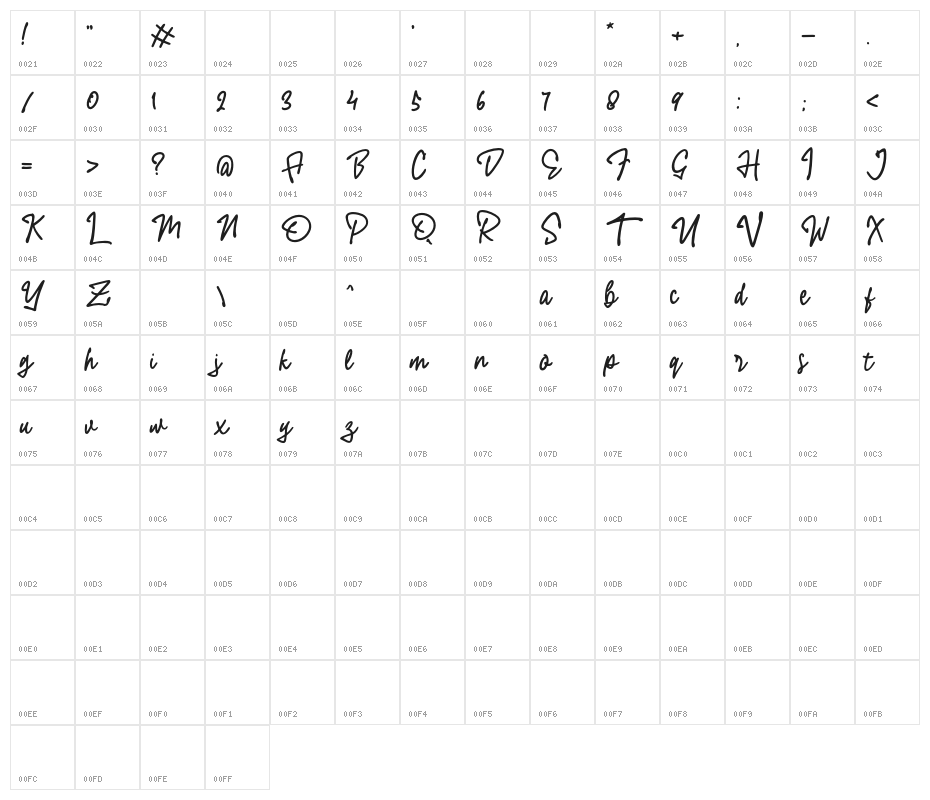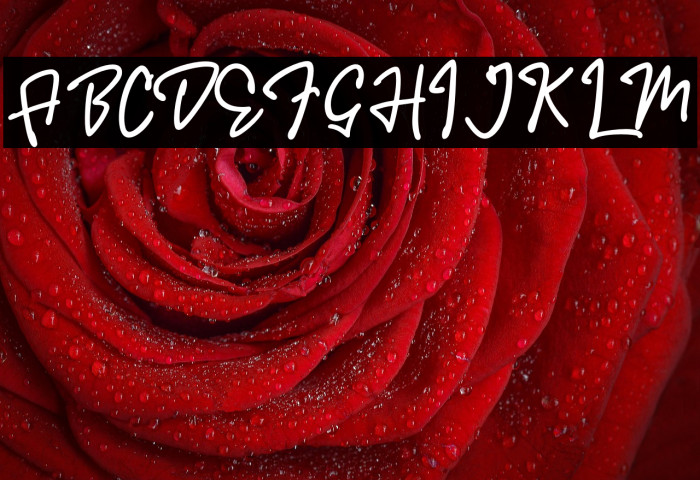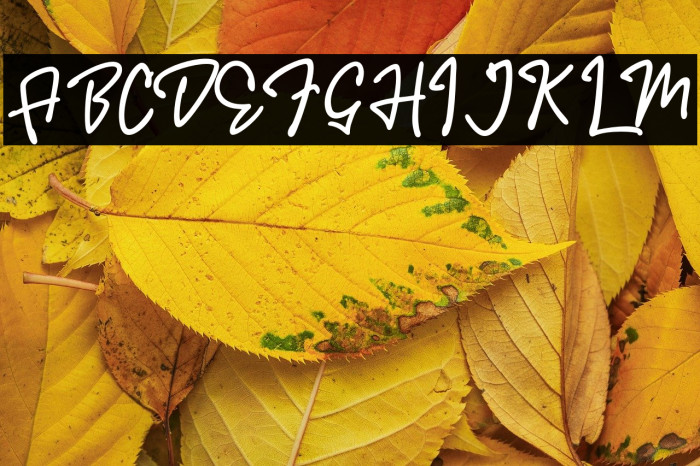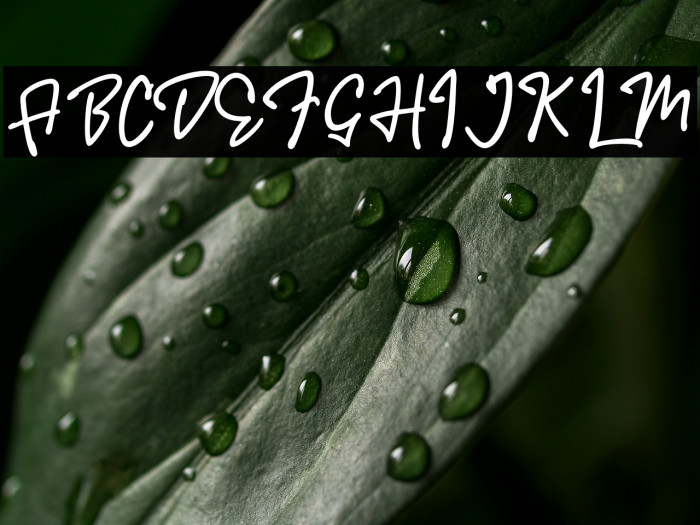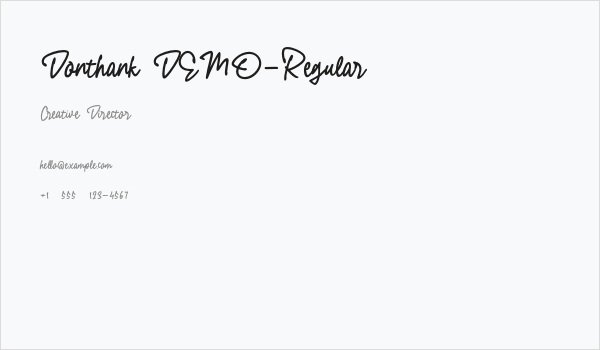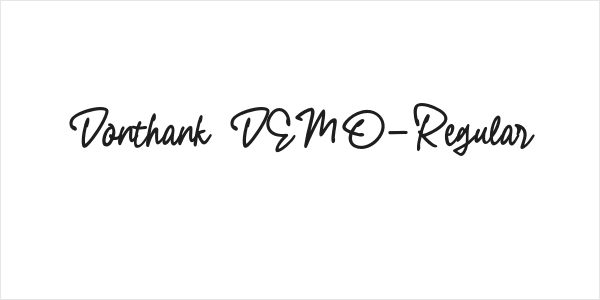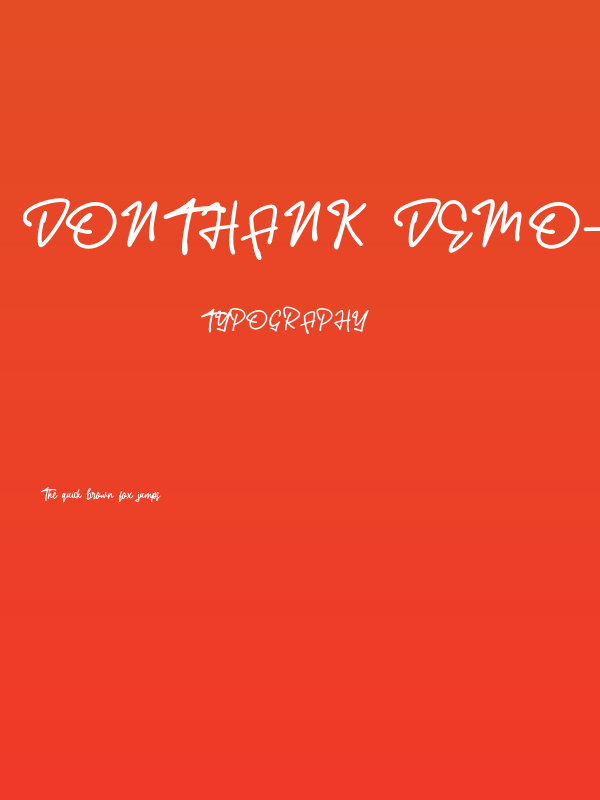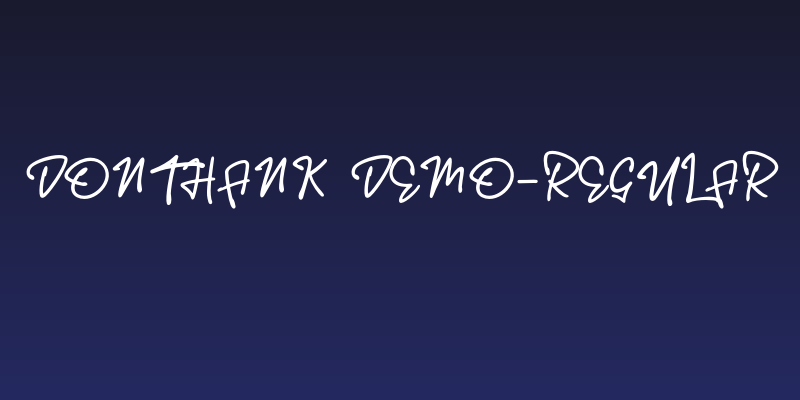
Donthank DEMO-Regular Font
Donthank DEMO-Regular Description
This font features a lively and expressive handwritten style, characterized by its fluid and dynamic strokes. The uppercase letters exhibit a playful yet elegant flair, with varying stroke widths that add a sense of movement and energy. The lowercase letters maintain a consistent flow, enhancing readability while preserving the font's artistic nature. Numbers and special characters are crafted with the same attention to detail, ensuring a cohesive look across all elements. This font's unique style makes it ideal for creative projects that require a personal touch.